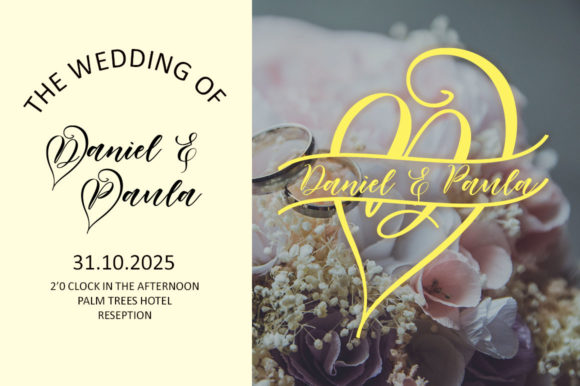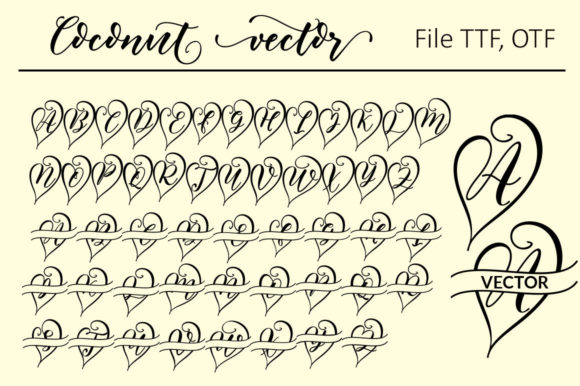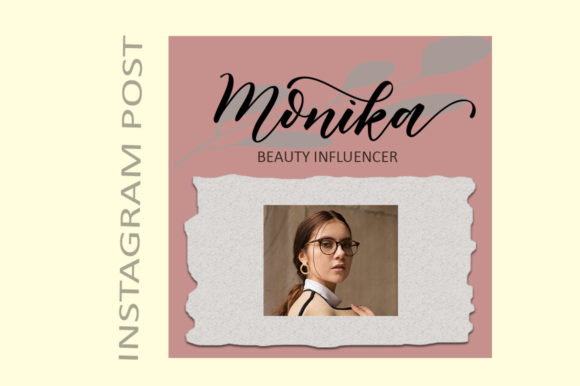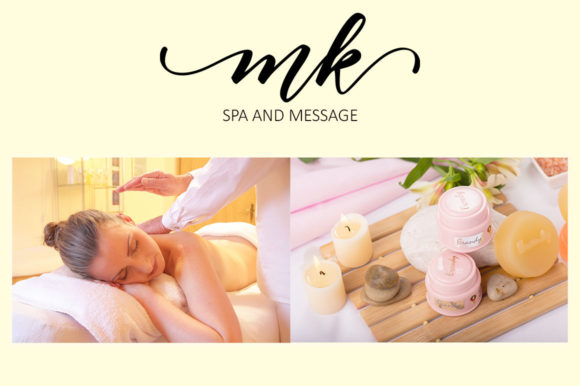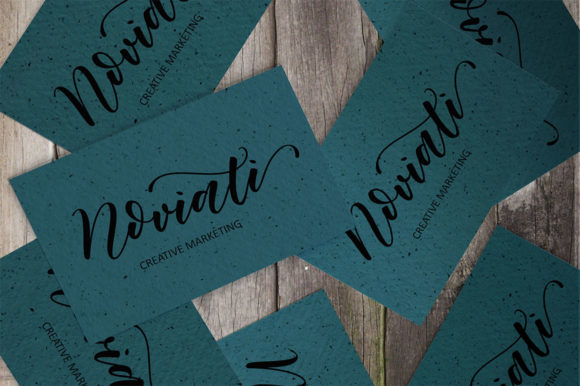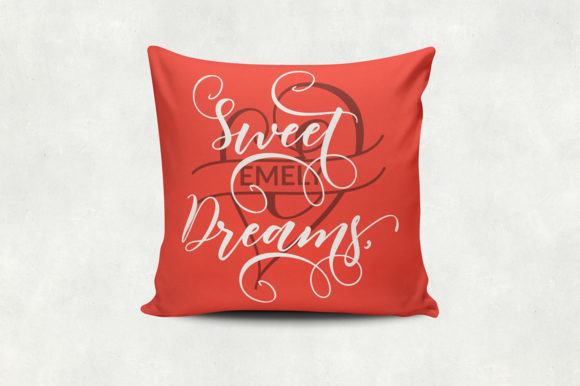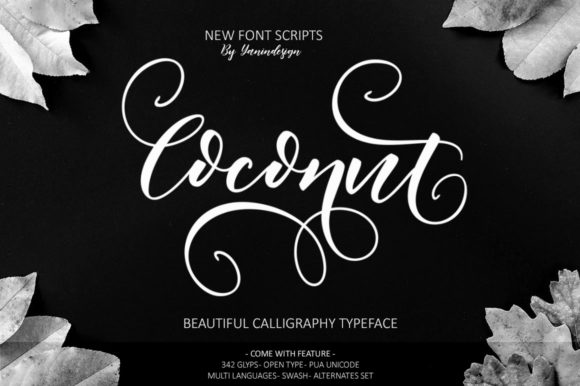
Coconut Font: Elevate Your Designs with Elegance and Flair
Are you a designer or crafter looking for a font that exudes elegance and sophistication? Look no further than Coconut Font. This beautiful, handwritten font is perfect for adding a touch of refinement to a variety of design projects, from wedding invitations and greeting cards to logos and business cards.
The Characteristics of Coconut Font
Coconut Font is a true standout in the world of typography. Its flowing lines and elegant script make it feel incredibly sophisticated and refined. The font features a varying baseline, which gives it a sense of movement and fluidity. The lines are smooth and flowing, creating a beautiful, cursive effect that is perfect for designs that require a touch of whimsy and romance.
One of the standout features of Coconut Font is its gorgeous glyphs. The font includes a wide range of characters, each one carefully crafted to ensure that it looks beautiful and elegant. From the intricate details of the uppercase letters to the flowing lines of the lowercase letters, every glyph in Coconut Font is a work of art.
Coconut Font is incredibly versatile, making it perfect for a wide range of design projects. Here are just a few ideas for how you can use this beautiful font:
- Wedding Invitations: Coconut Font is perfect for wedding invitations, adding a touch of elegance and sophistication to your designs.
- Greeting Cards: Whether you’re creating birthday cards, thank you cards, or holiday cards, Coconut Font is a great choice.
- Logos: If you’re looking for a font that will help your logo stand out, Coconut Font is a great option.
- Business Cards: Add a touch of elegance to your business cards with Coconut Font.
- Quotes: Coconut Font is perfect for creating beautiful quote designs that are perfect for social media or print.
Why Designers and Crafters Love Coconut Font
So why do designers and crafters love Coconut Font? Here are just a few reasons:
- Elegance: Coconut Font is incredibly elegant, making it perfect for designs that require a touch of sophistication.
- Versatility: Coconut Font can be used for a wide range of design projects, from wedding invitations to logos.
- Easy to Read: Despite its elegant lines, Coconut Font is easy to read, making it perfect for designs that require a lot of text.
- Unique: Coconut Font is a unique and distinctive font that will help your designs stand out from the crowd.
Tips for Using Coconut Font
Here are a few tips for getting the most out of Coconut Font:
- Use it sparingly: Coconut Font is a beautiful font, but it can be overwhelming if used too much. Use it sparingly to add a touch of elegance to your designs.
- Pair it with other fonts: Coconut Font pairs well with a variety of other fonts, including sans-serif fonts and serif fonts.
- Experiment with different sizes: Coconut Font looks beautiful in a variety of sizes, from large headings to smaller body text.
Coconut Font is a beautiful, elegant font that is perfect for designers and crafters looking to add a touch of sophistication to their designs. With its flowing lines, gorgeous glyphs, and stunning alternates, Coconut Font is a great choice for a wide range of design projects. Whether you’re creating wedding invitations, greeting cards, logos, or business cards, Coconut Font is sure to impress.